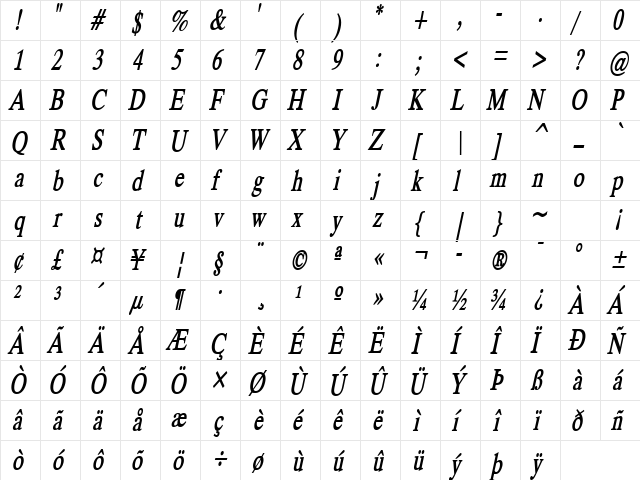
DukeCondensed BoldItalic Font Preview
Design Context for DukeCondensed Typeface
DukeCondensed offers clean, dependable letterforms without strong stylistic allegiance, making it a practical choice for designers who need flexibility. The dynamic lean of this cut emphasises speed and emphasis in any layout. Its bold stroke weight gives it real presence on the page. Its narrow stance lets it pack a punch even in space-constrained designs.